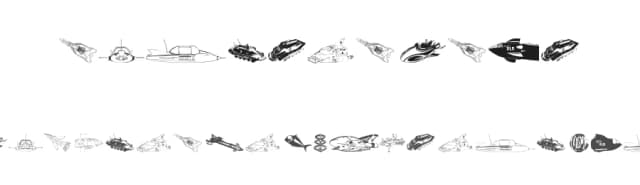
About Aero Font One Font
Aero Font One is a decorative font designed by Steve Ferrera. It includes 653 glyphs, a regular weight, TTF (TrueType) format, and 292 languages. Aero Font One is free to download; check the license details on this page before commercial use. Decorative fonts like Aero Font One work best for logos, posters, packaging, and standout headlines.
Aero Font One Font is a decorative font that shines as a display or heading face. Pair it with a clean sans-serif or serif font for body text β the contrast creates a clear hierarchy while the two styles stay balanced and easy to read.